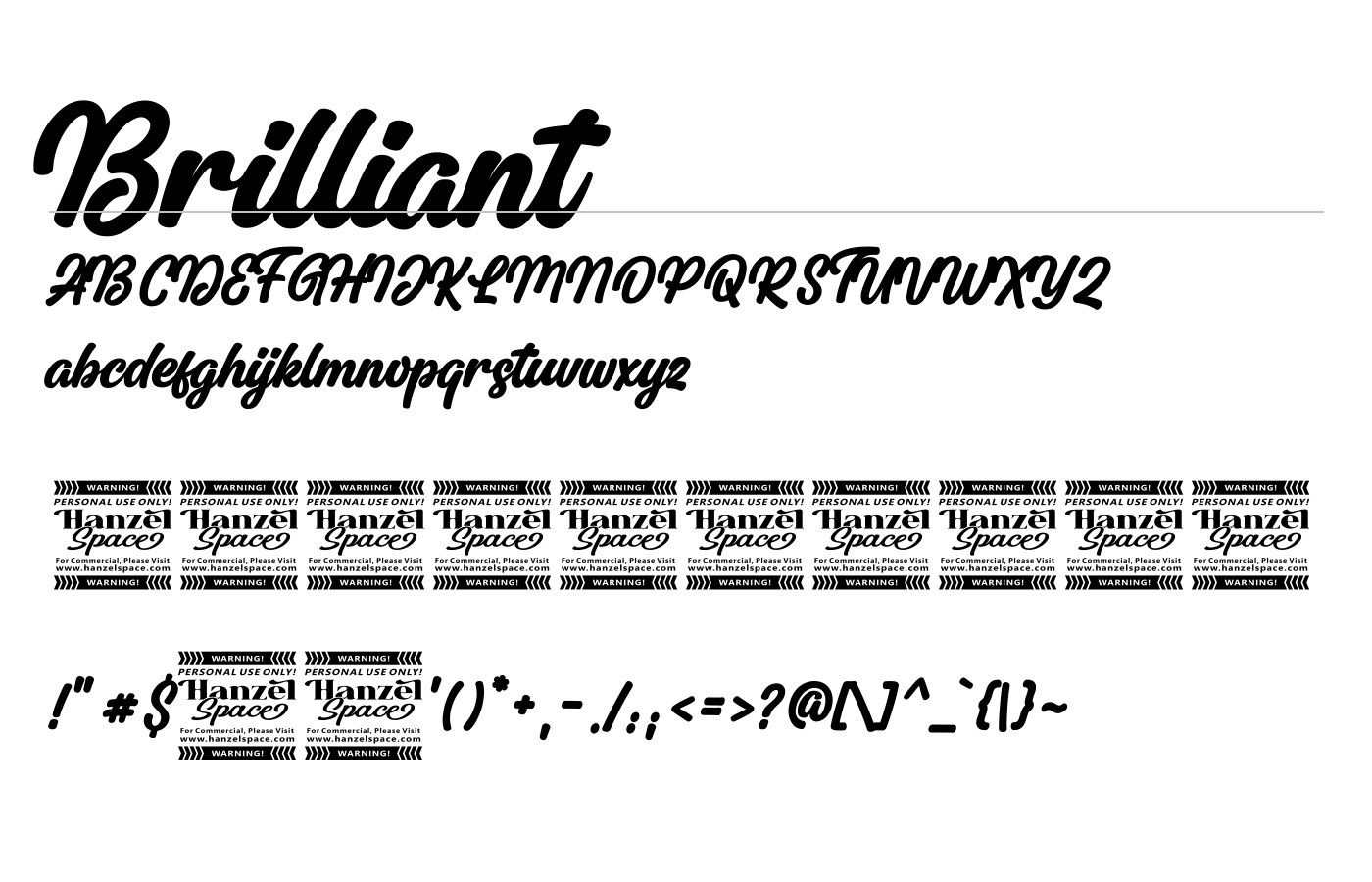
Brilliant Font is a bold and lively script typeface with smooth, rounded strokes and a friendly, handwritten feel. Its thick weight and connected letterforms make it perfect for creating eye-catching headlines, logos, and branding that want to convey warmth and approachability. This font works especially well in creative and casual contexts where a personal, energetic touch is desired.
Brilliant Font
About Brilliant Font
| Font family | Brilliant Font |
| Designer | hanief Farandi |